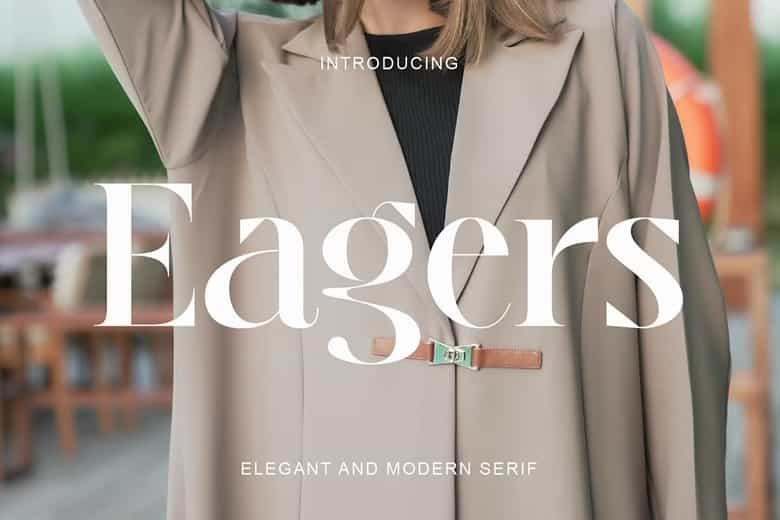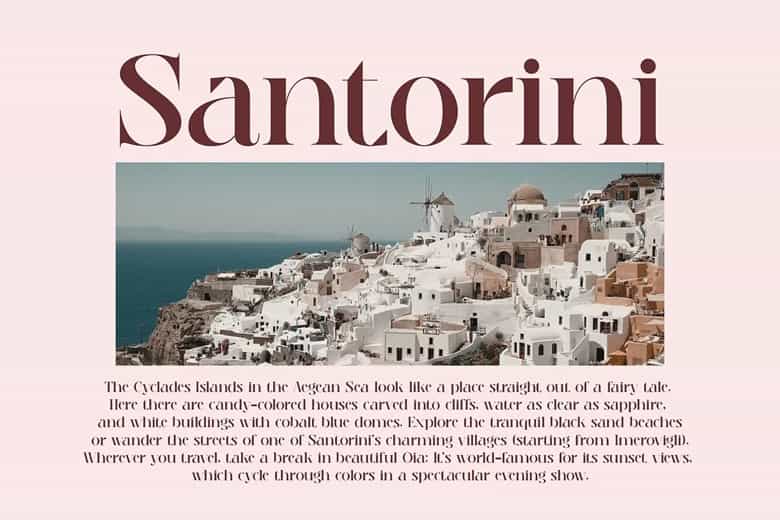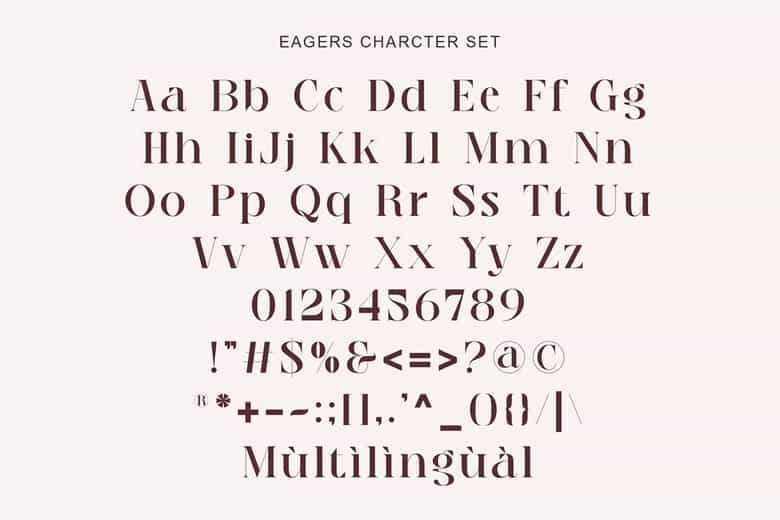
Eagers is an elegant modern serif font. Featuring clean lines and elegant look, Eagers inspired by luxury, class and proactivity to add elegance to your projects like Web, logos, brands, Twitter, and status updates, wedding invitations, magazine, and others.